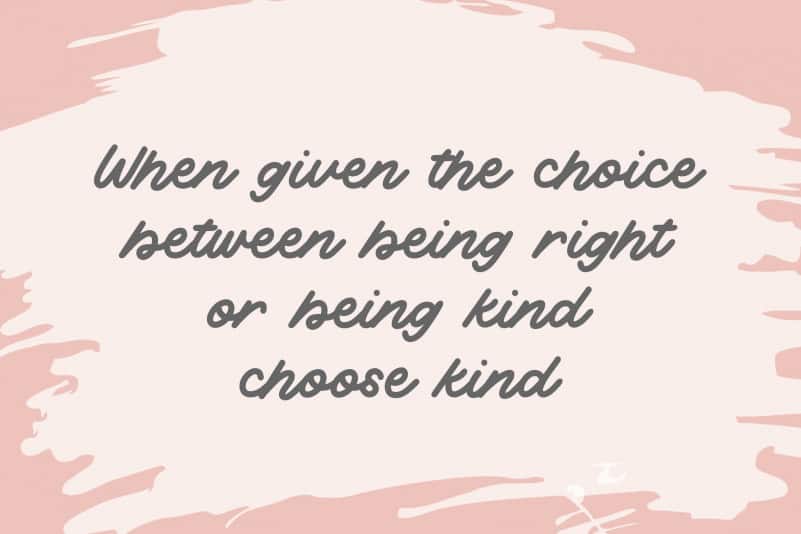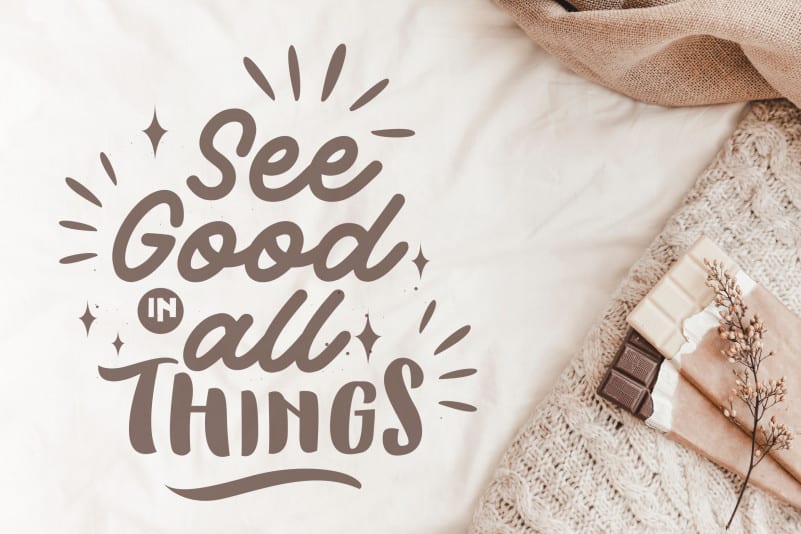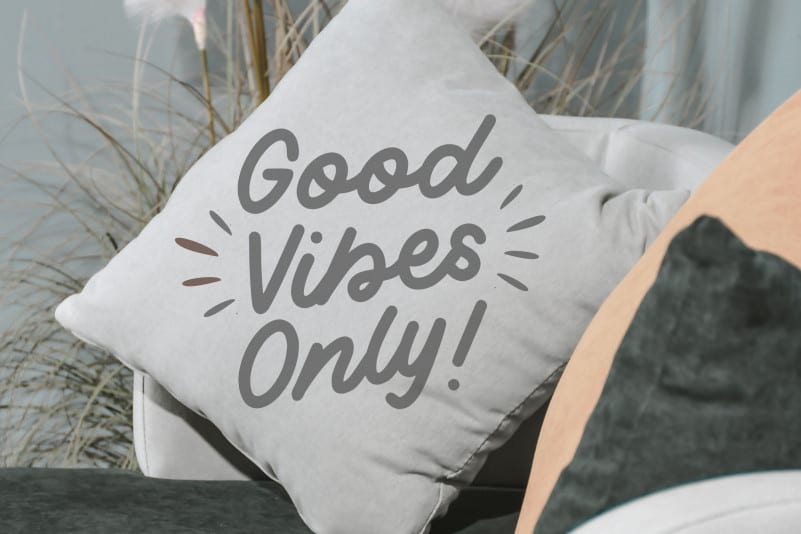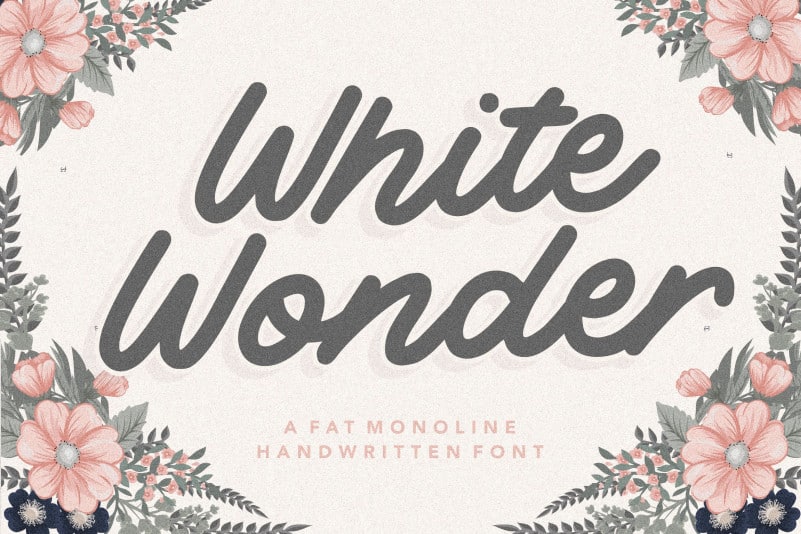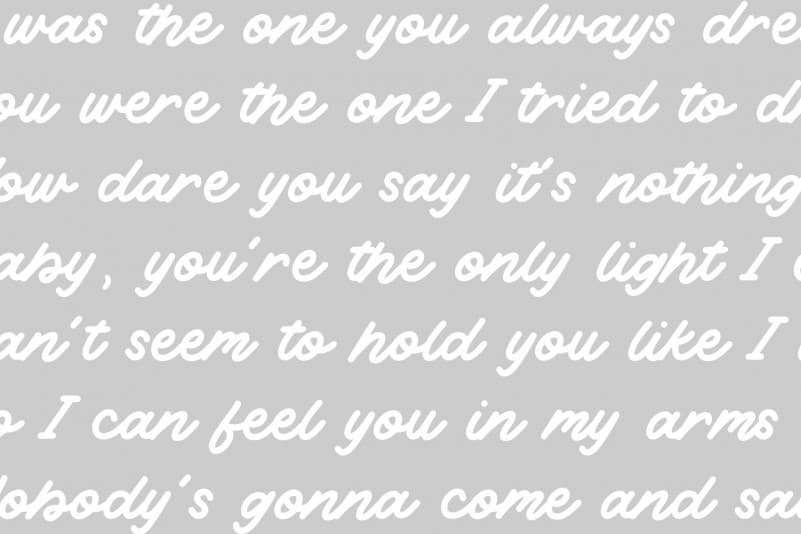
White Wonder Monoline Handwritten Font
Proudly Present, White Wonder Monoline Handwritten Font.
White Wonder is a Fat Monoline Handwritten Font.
White Wonder is perfect for product packaging, branding project, megazine, social media, wedding, or just used to express words above the background.